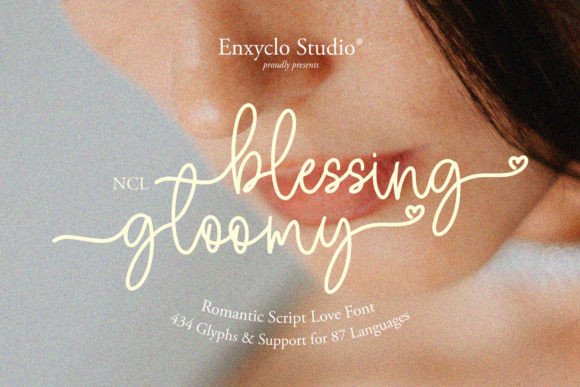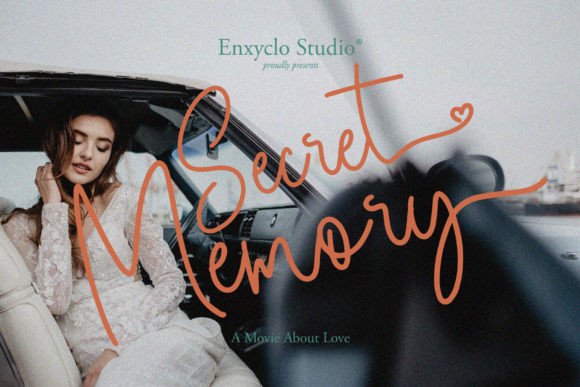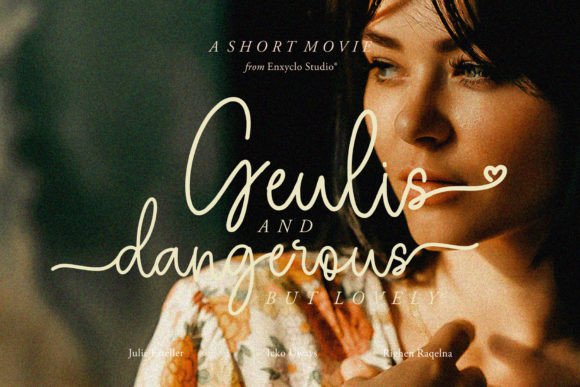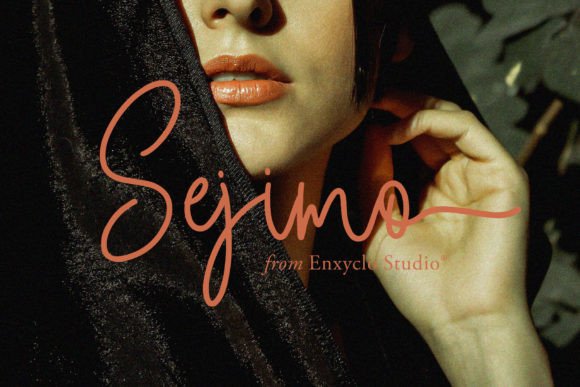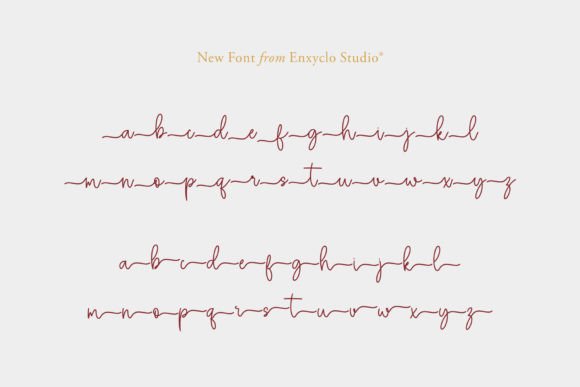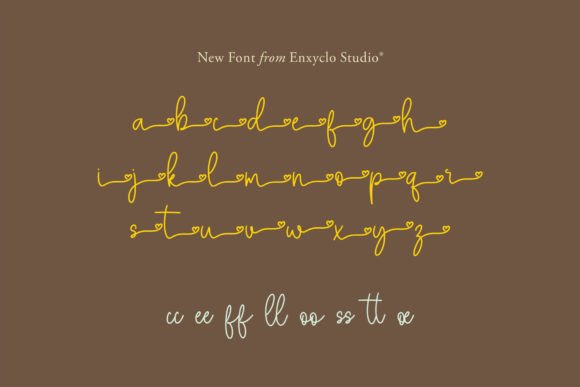
Blessing Gloomy Font
Blessing Gloomy is a romantic love heart swash script font. It is a unique handwritten script font with heart or love swashes. Masterfully designed to become a true favorite, this font has the potential to bring each of your creative ideas to the highest level! It was purposely crafted to be used in large point sizes, although it doesn’t lose its magic in small point sizes. It is perfect for wedding or romantic events, headlines, billboards, magazines, websites, titles, posters, branding, t-shirt design, and logos. No matter the topic, this font will be an incredible asset to your fonts’ library, as it has the potential to elevate any creation. With this beautiful font, absolutely you can make your project stand out from the rest. See the previews above to get some inspiration on how to use them.